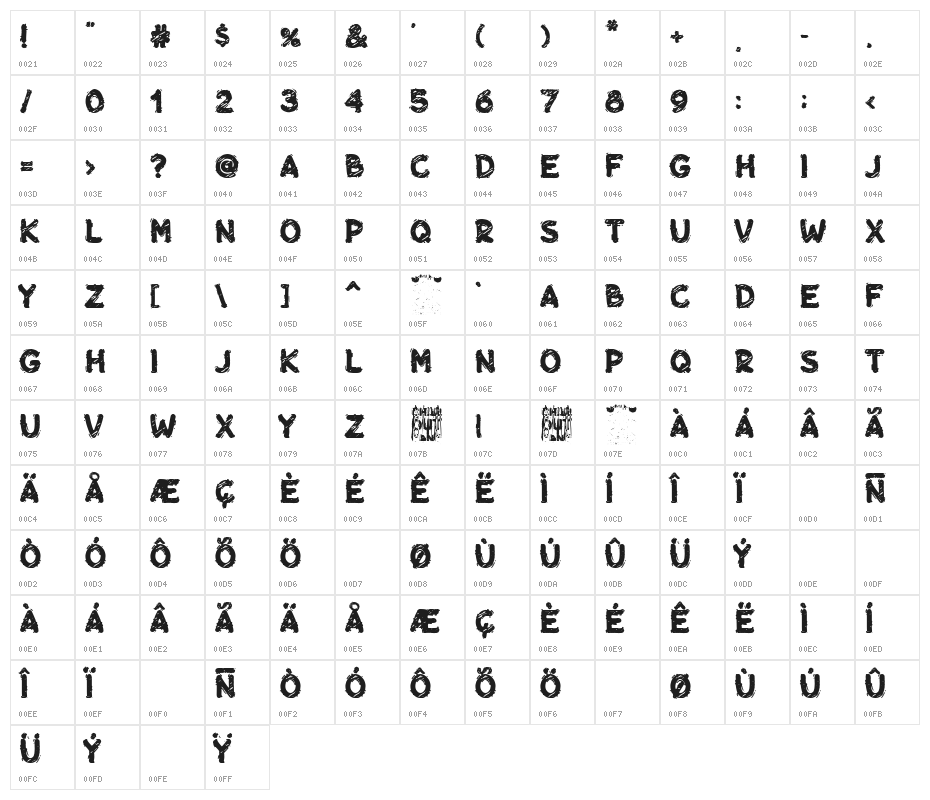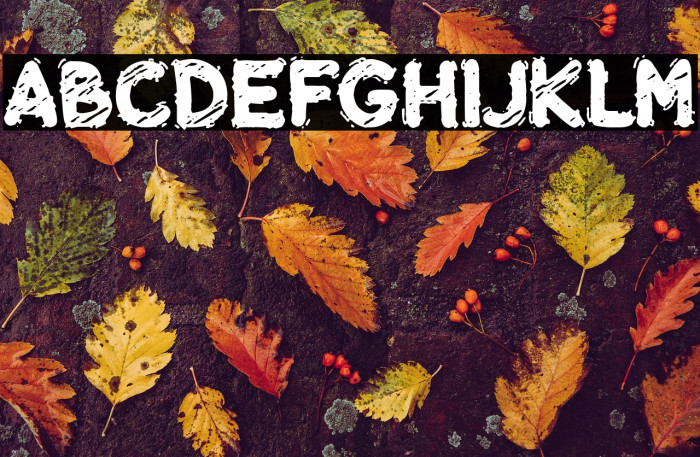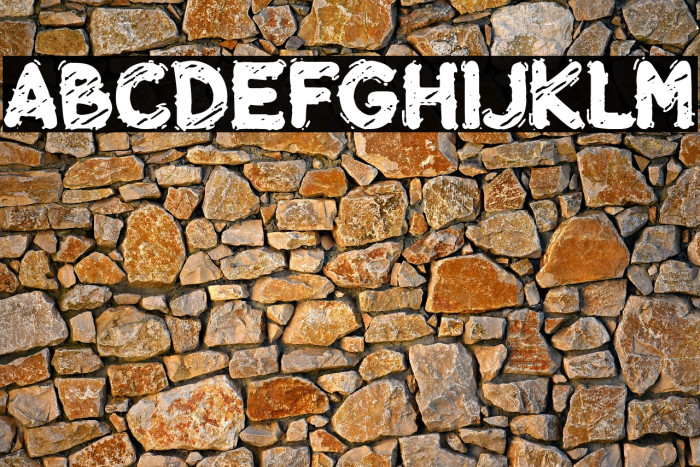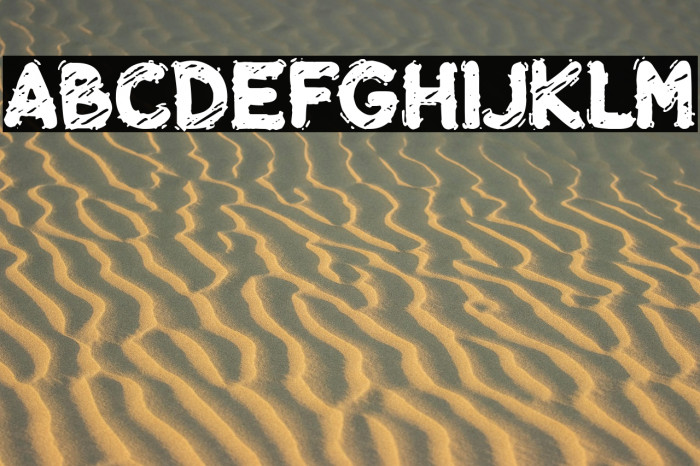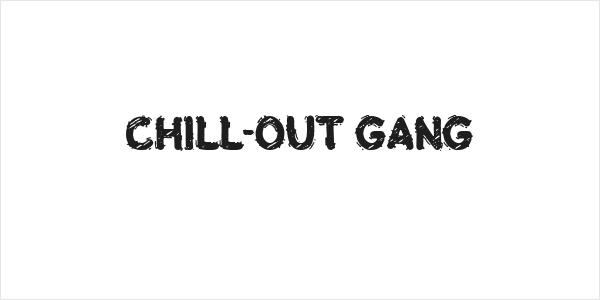
Chill-out Gang Font
Chill-out Gang Description
This font features a bold and expressive design with a distressed, grunge-like texture. Each character appears as if it has been painted with a brush, giving it a raw and artistic feel. The letters are uppercase and lowercase, with numbers and a variety of special characters. The strokes are thick and uneven, adding to the chaotic and energetic appearance. This style is perfect for projects that require a bold statement or an edgy, urban vibe.
| Proposed Projects | Ideal for music album covers, streetwear branding, graffiti art, posters, and edgy social media graphics. |